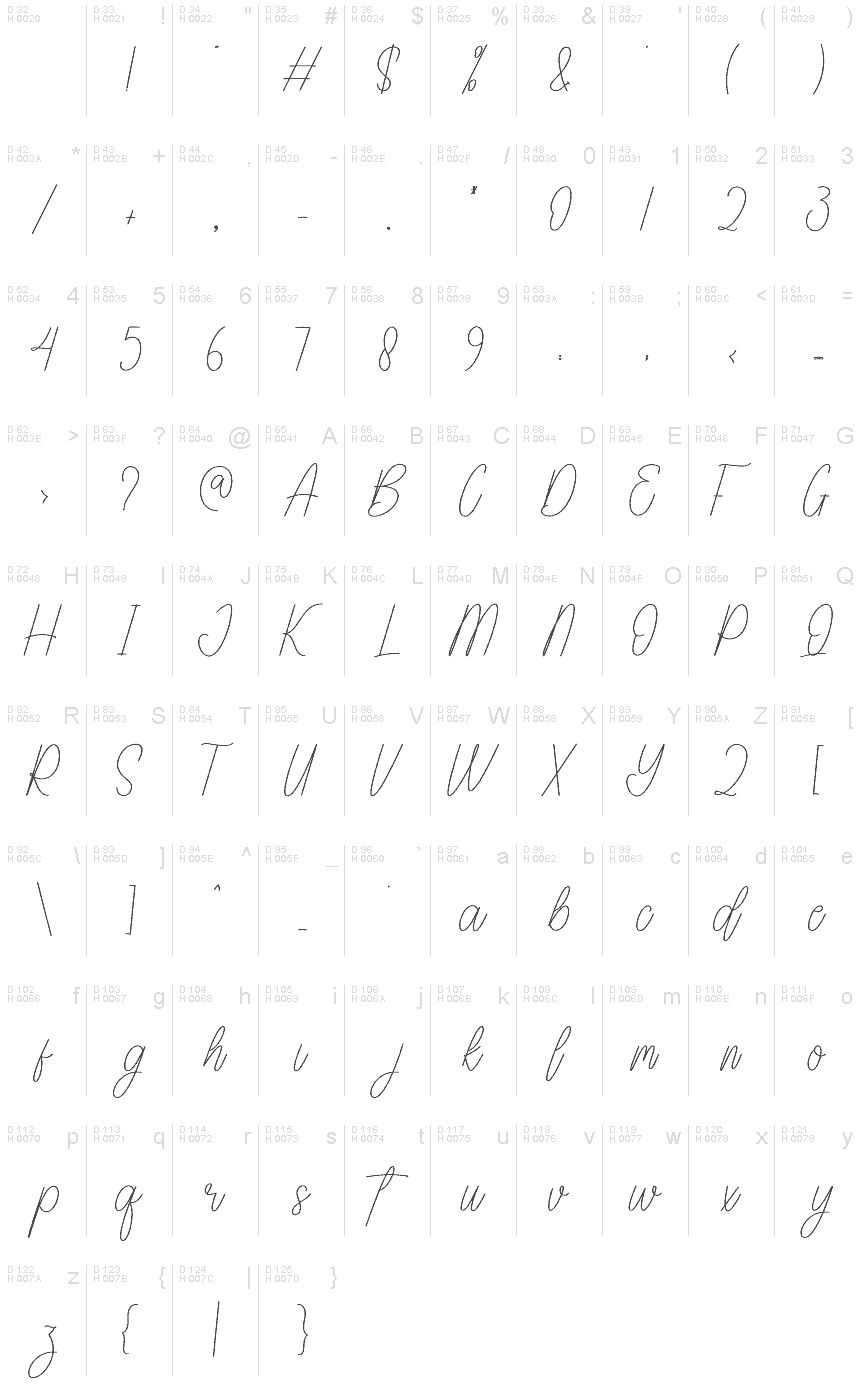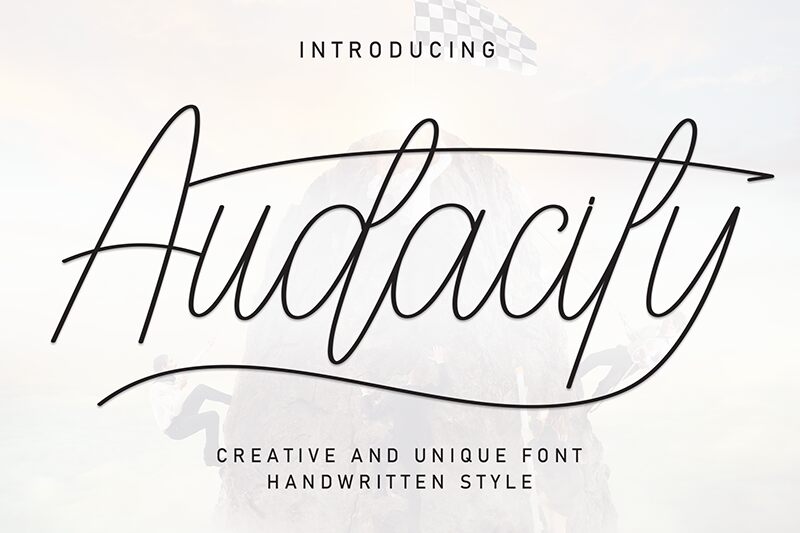
Audacity
Audacity font is a handwritten typeface created by Andi Moz. Its expressive style and natural feel are obtained with fluid, connected letters presented in light weight. Elegance is one of the font’s strongest traits, making Audacity a great candidate if premium quality is what you’re aiming for.
This condensed free font offers plenty of use cases with few limitations: packaging designs, branding projects, name tags, invites and RSVP cards, stationery design sets (business cards and letters), merchandising products such as mugs and t-shirts…